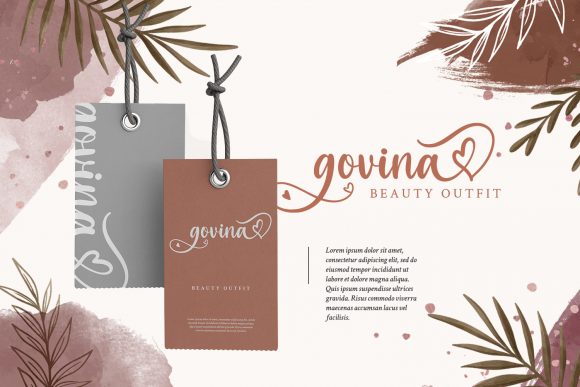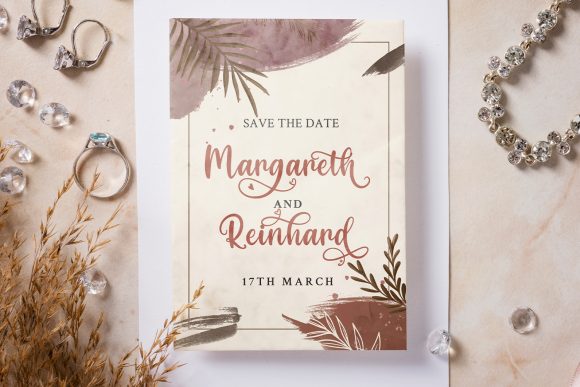
Angelin Heart Font
db-ku.com - Script & Handwritten -- Angelin Heart is a refined script font with a contemporary atmosphere and spotless form. Not too thin and not too thick, balanced and varied, Angelin Heart was designed to enhance the beauty of your projects.